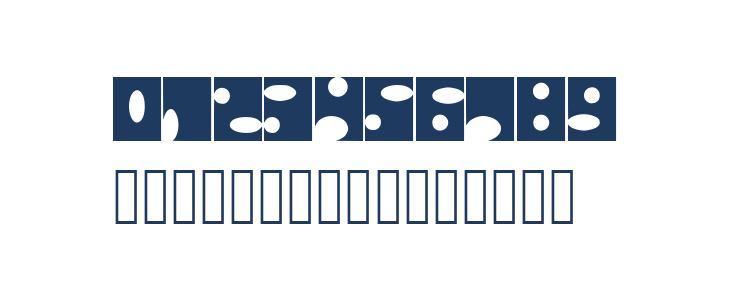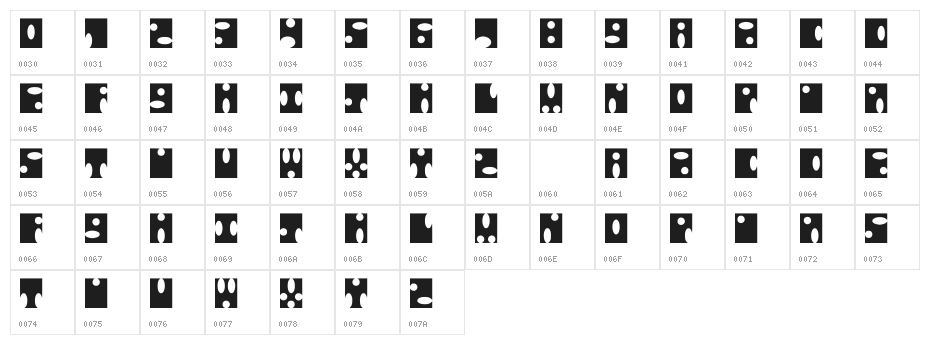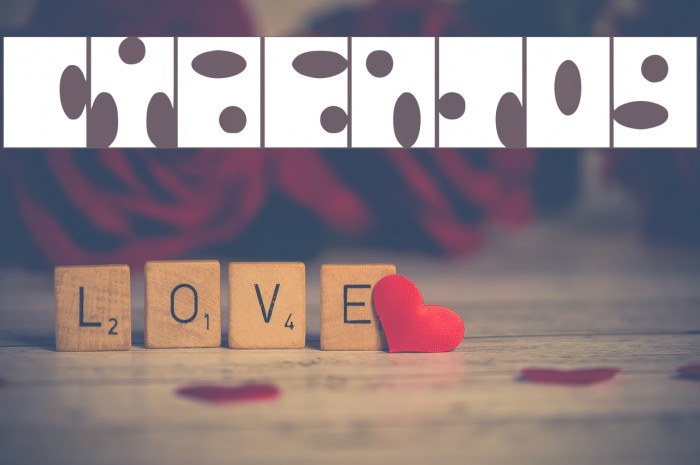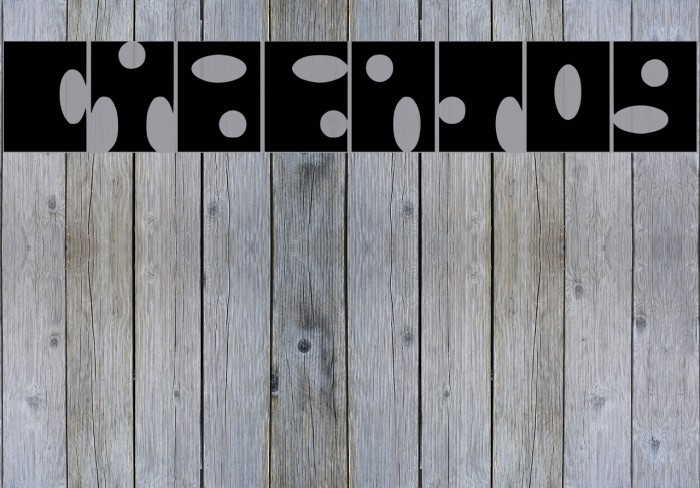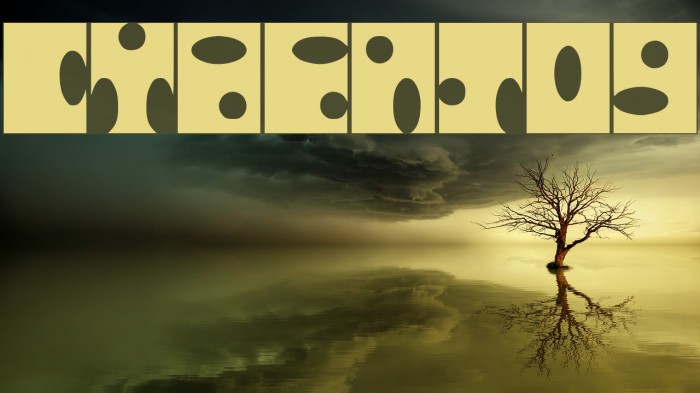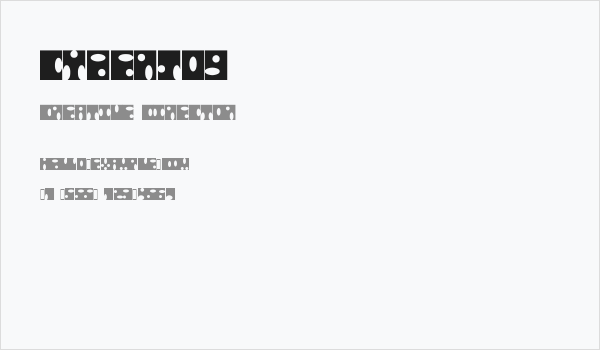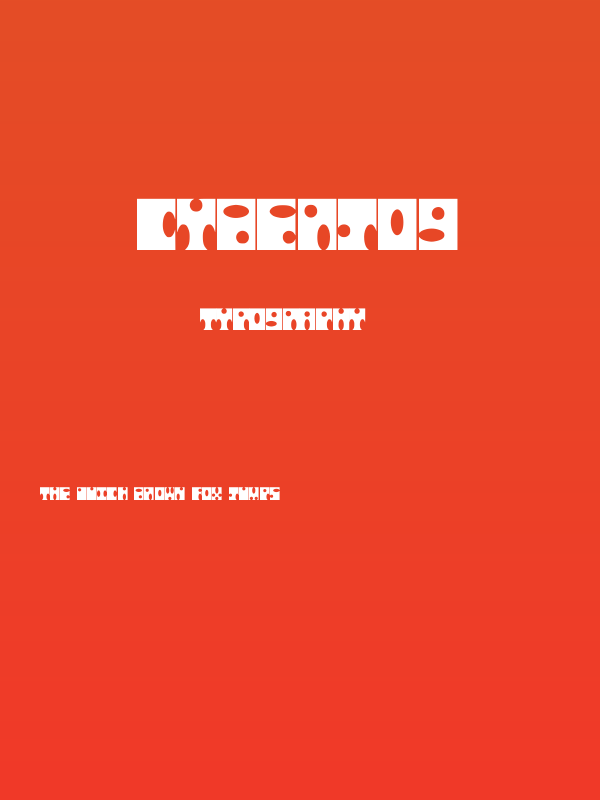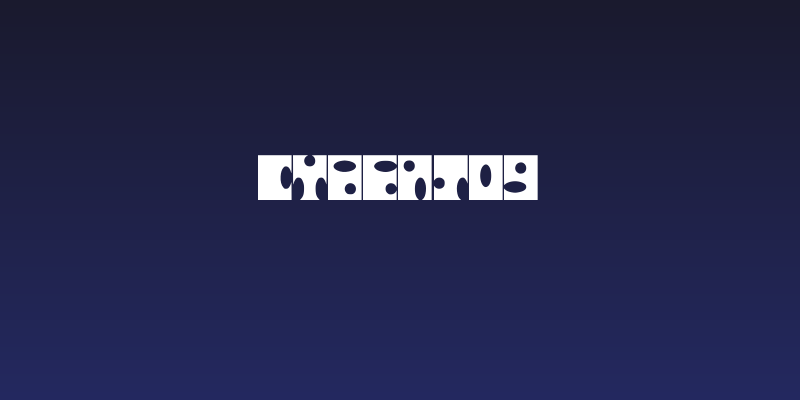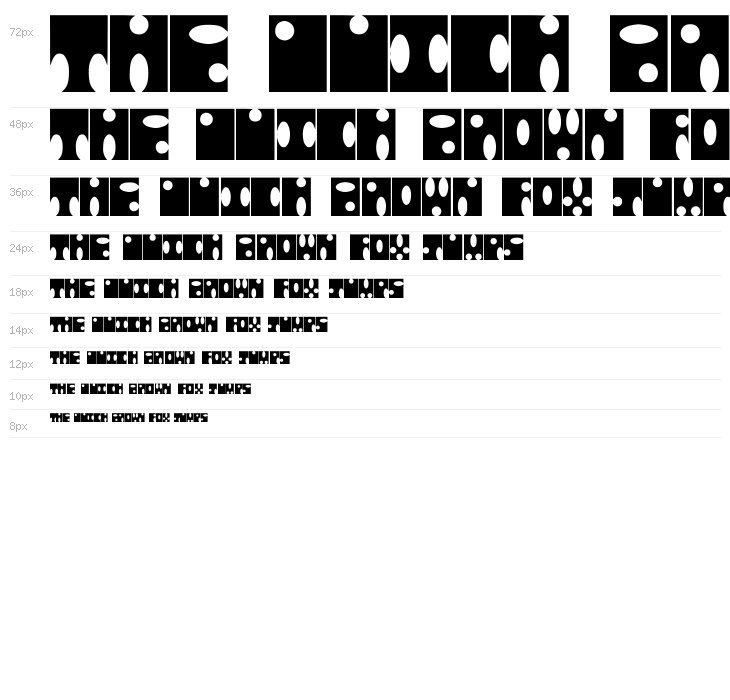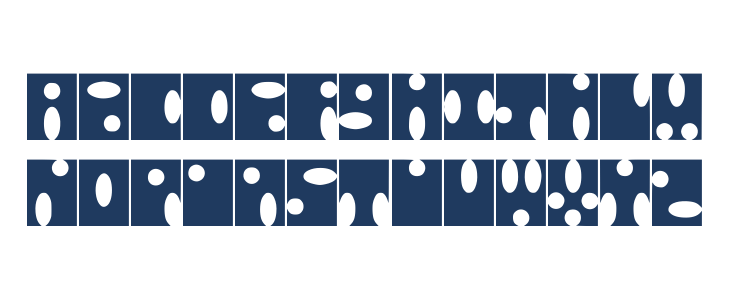
CyberJog Font
CyberJog Description
This font features a highly abstract and geometric design, characterized by its use of solid black rectangles with white elliptical cutouts forming the characters. The style is reminiscent of a futuristic or digital aesthetic, with each letter and symbol crafted from a series of ovals and circles that create a unique, almost puzzle-like appearance. The characters are uniform in height and width, contributing to a monospaced feel, though the actual spacing between characters is quite tight. The font's bold and striking visual impact makes it suitable for projects that require a modern and unconventional look.
Use CaseLogos, Posters, Digital Art
Proposed ProjectsIdeal for digital art, sci-fi themed designs, modern posters, and experimental branding.